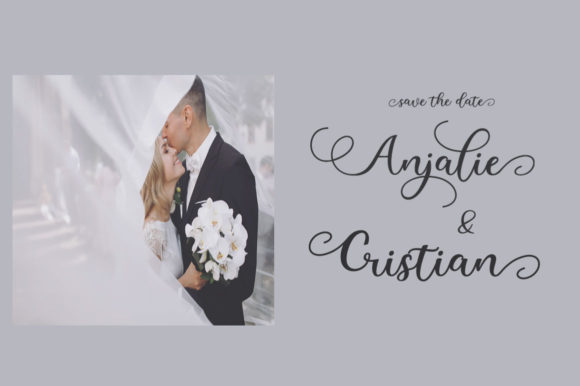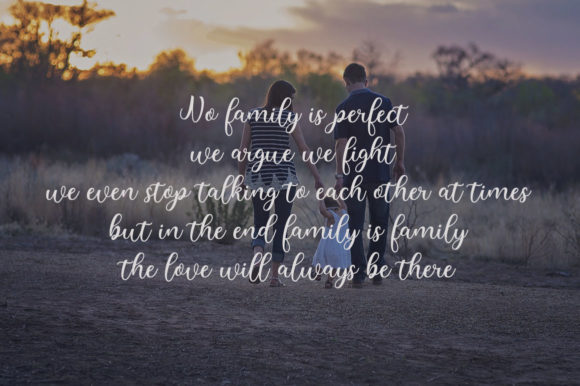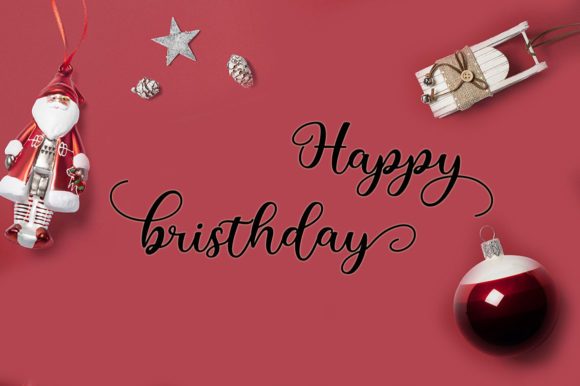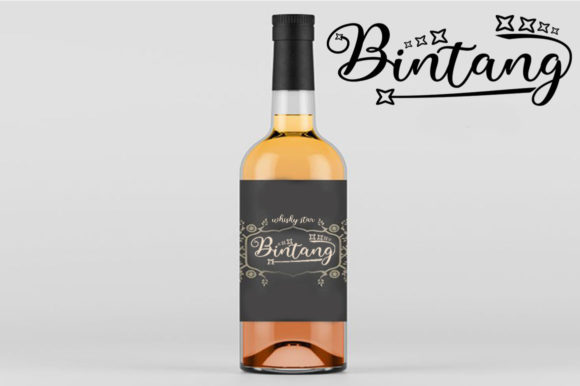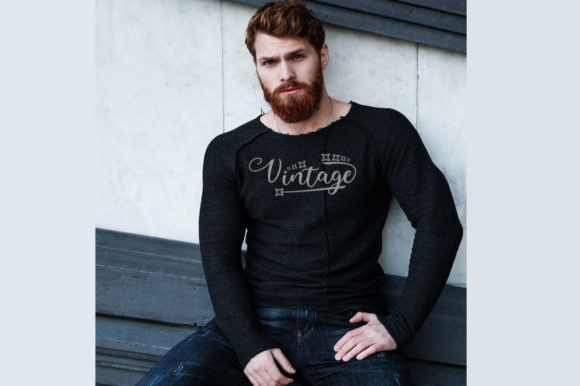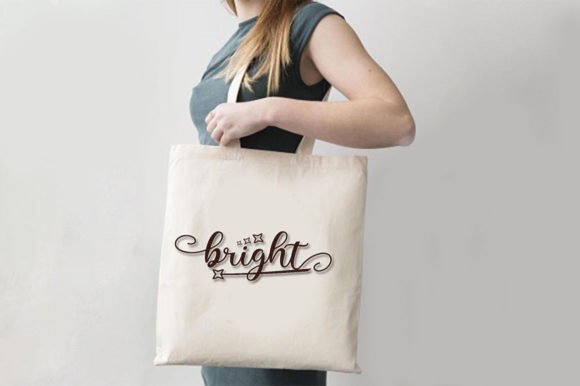
Unlock the Magic of Hand-Drawn Charm
Do you remember the feeling of rummaging through your grandmother’s craft box as a child, discovering an array of colorful markers, glitter, and paper scraps? The thrill of creating something unique and special with your own two hands is a sensation that never gets old, and it’s exactly what the Baby Lovely Font is designed to evoke.
This sweet, soft hand-lettered script is the perfect companion for any creative project, from gorgeous wedding invitations to beautiful stationery art. Its playful rounded characters and swashes make it incredibly easy to add a decorative touch in seconds, making it a valuable addition to any designer’s toolkit. With the Baby Lovely Font, you’ll be able to infuse your work with an authentic, hand-crafted feel that’s sure to delight.
Baby Lovely Font Key Features
- Unique Characteristics: The Baby Lovely Font features a playful, handwritten style with subtle imperfections, giving it a charming and endearing feel.
Baby Lovely Font Review
Overall, I have mixed feelings about the Baby Lovely Font. It’s a beautiful, whimsical font that’s sure to capture the hearts of parents and grandparents alike. ✨ The curves are smooth, the lines are delicate, and the overall feel is soft and endearing.
- ✨ Delicate curves and lines that evoke a sense of childlike wonder
- ✨ Suitable for baby-themed projects, nursery decor, or children’s book covers
- ✨ Easy to read, even at small font sizes
However, there are some limitations to consider. ⚠️ The font may not be suitable for more formal or professional projects, as it can come across as too cutesy or childish. Additionally, the font may not be as versatile as other fonts, as it’s specifically designed for baby-related themes.
Limitsations:
- ⚠️ May not be suitable for formal or professional projects
- ⚠️ Limited versatility, as it’s specifically designed for baby-related themes
Overall, I think the Baby Lovely Font is a great choice for parents and grandparents looking to create something special for their little ones. However, it may not be the best fit for more formal or professional projects.
The Baby Lovely Font is perfect for:
- Children’s book covers and illustrations
- Baby product branding and marketing materials
For the best results, use the Baby Lovely Font in conjunction with pastel colors and whimsical graphics.
Alternatives to “Baby Lovely Font” for Designers
Pacifico is a beautiful, elegant script font perfect for creating a soft and feminine look. It’s ideal for use in wedding invitations, baby announcements, and other designs that require a touch of sophistication. Compared to Baby Lovely Font, Pacifico has a more refined and polished feel, making it suitable for high-end designs.
Great Vibes is a modern, cursive script font that exudes a sense of playfulness and fun. It’s perfect for use in designs that require a relaxed, casual tone, such as social media graphics, blog posts, and children’s products. Compared to Baby Lovely Font, Great Vibes has a more dynamic and energetic feel, making it suitable for designs that need to convey a sense of excitement.
Carolyna Pro is a sophisticated, elegant script font that’s perfect for creating a luxurious and high-end look. It’s ideal for use in designs that require a touch of glamour, such as fashion magazines, luxury brands, and fine art prints. Compared to Baby Lovely Font, Carolyna Pro has a more refined and polished feel, making it suitable for designs that need to convey a sense of sophistication and elegance.